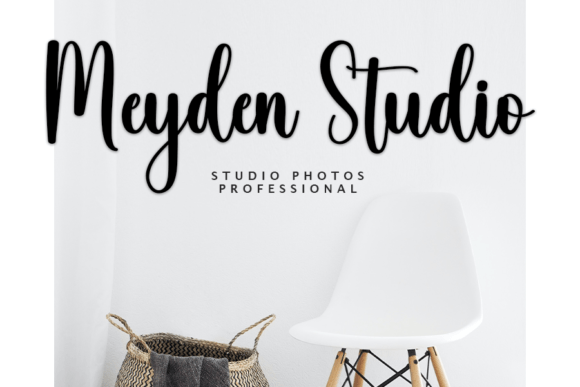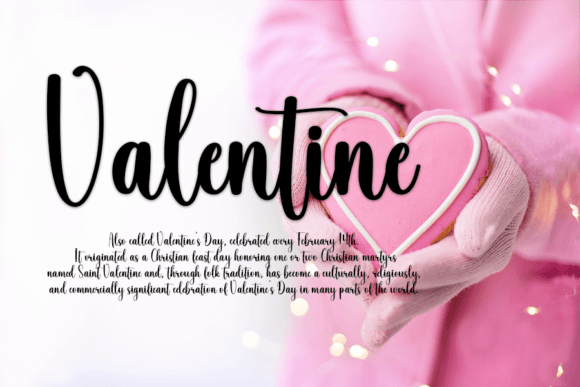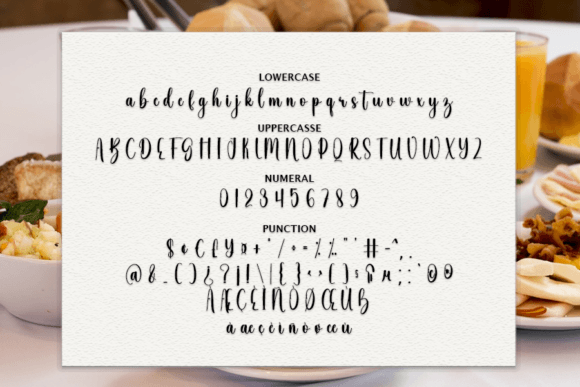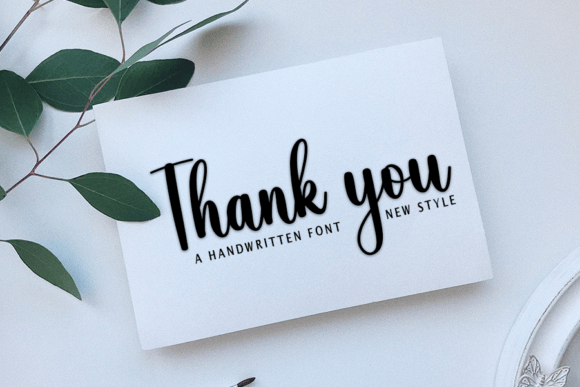
The Sweet Spot: Discovering the Charm of Butter Font
This delicate handwritten font has since become a staple in my design toolkit, and I’m excited to share its charm with you. Whether you’re a designer, crafter, or creative hobbyist, Butter Font is sure to add a touch of whimsy and personality to your projects.
- ✨ Unique and eye-catching design that’s perfect for titles, invitations, and food-related products
- 💫 Supports OpenType features, glyphs, and stylistic alternates for added versatility
- 🎨 Works beautifully with both digital and print applications
While Butter Font is an excellent choice for many projects, there are a few things to keep in mind:
- ⚠️ Limited character set compared to some other fonts on the market
- 🤔 May not be the best choice for very long blocks of text, as it can feel a bit ornate
The Story Behind Butter Font: Designer Inspiration
Butter Font was crafted with love by a talented type designer who wanted to create a font that felt both delicate and approachable. Inspired by the smooth, creamy texture of butter, the designer aimed to create a font that would add a touch of warmth and personality to any project. While the designer’s exact story may be shrouded in mystery, one thing is clear: Butter Font has captured the hearts of designers and crafters around the world.
Q: What is Butter Font best suited for?
A: Butter Font is ideal for titles, invitations, food-related products, and any project that requires a touch of whimsy and personality.
Q: Does Butter Font support OpenType features?
A: Yes, Butter Font supports OpenType features, glyphs, and stylistic alternates, making it a versatile choice for a wide range of projects.